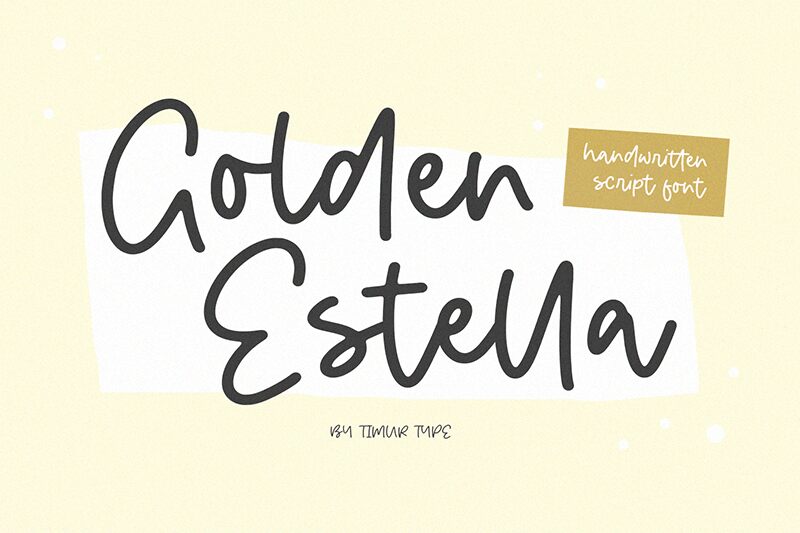
Golden Estella
Golden Estella, a creation by Timur Type, is a font that exudes charm and personality. With its handwritten style, it carries the warmth and intimacy of personal correspondence. The font dances with an effortless grace, each letter crafted to look as though it has been penned by a skilled calligrapher. Its strokes are fluid, yet they hold a certain boldness that makes them leap off the page.
This font finds its strength in its versatility—it could be the perfect choice for wedding invitations that require an elegant touch or for branding materials that seek to convey authenticity and sophistication. Golden Estella's inviting curves make it ideal for book covers, greeting cards, and any project that demands a handcrafted feel with a dash of luxury.